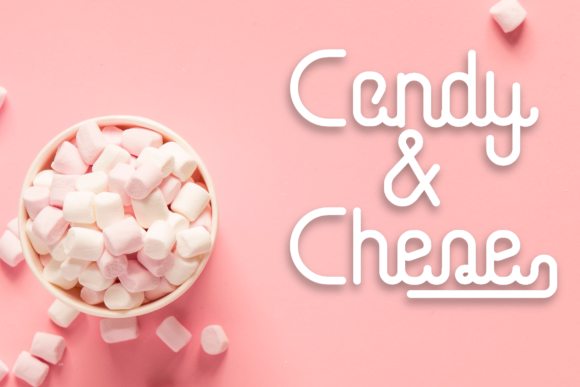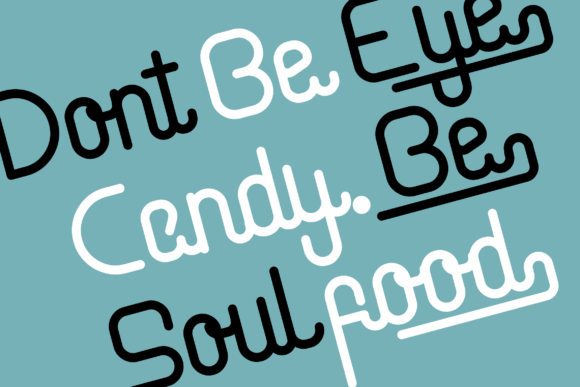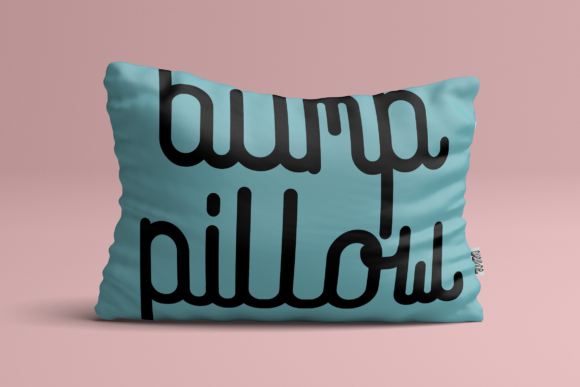
Introduction to Cabello Script Font
Cabello Script is a vintage styled and delicate handwritten font.
It has beautiful and well balanced characters and as a result, it matches a wide pool of designs .